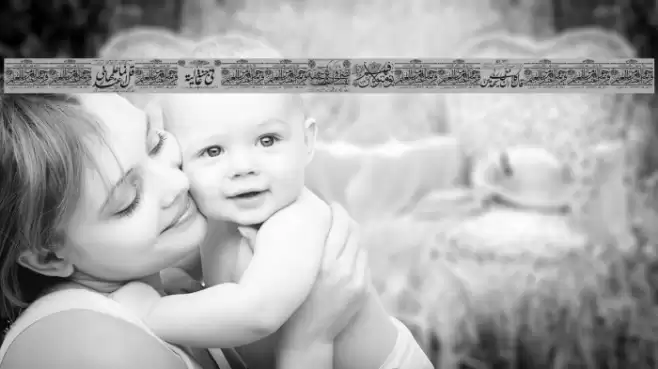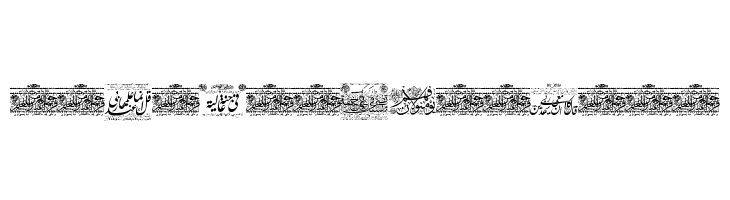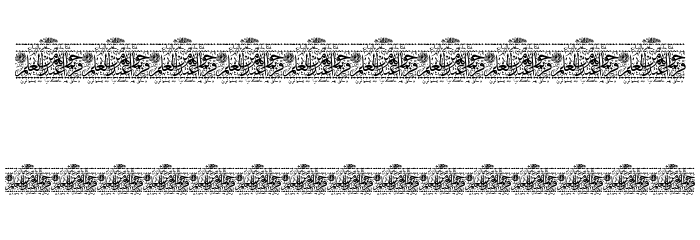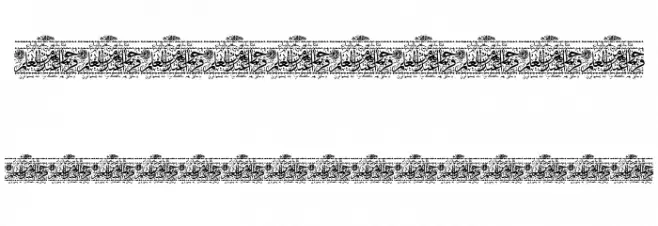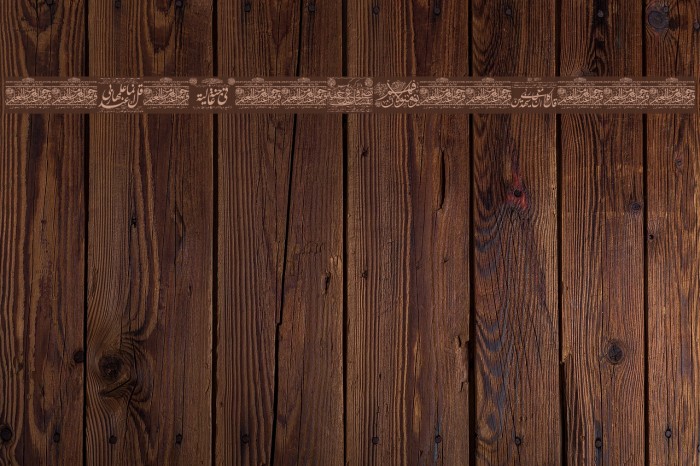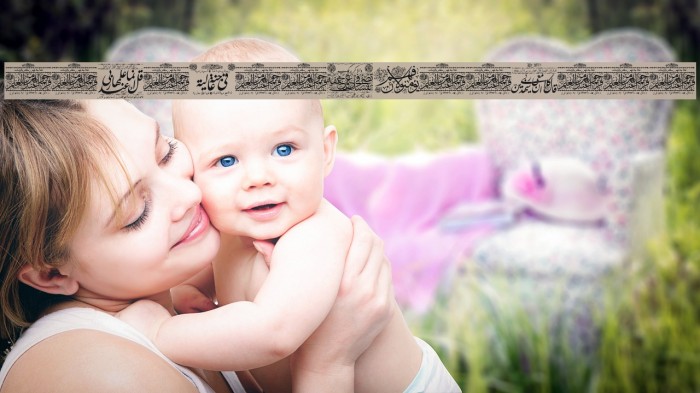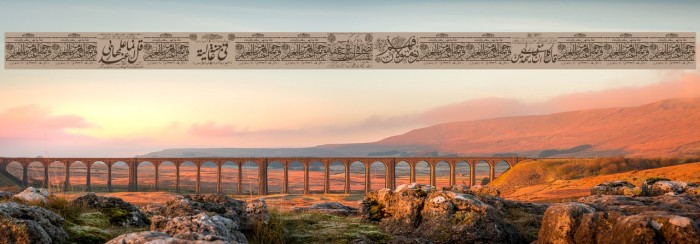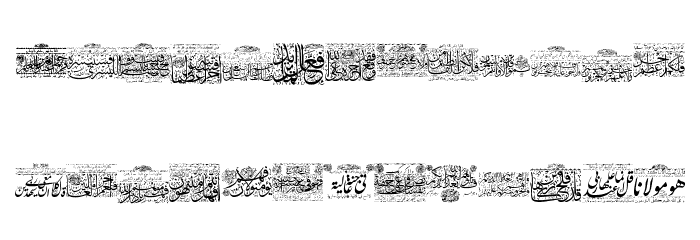
Aayat Quraan 27 Font
Aayat Quraan 27 Description
This image contains Arabic calligraphy with ornate, decorative elements and intricate detailing, commonly used in religious or ceremonial contexts. The script is highly stylized with complex ligatures and flourishes, making it more suitable for display rather than standard text usage.
Ornate Arabic calligraphic script with decorative flourishes from Uncategorized fonts.
- Proposed Projects: Religious texts, ceremonial documents, decorative art, posters, book covers.
- Character Spacing: Tight
- Overall Style: Decorative, Traditional, Religious
- Use Case: Religious scripture, Display, Art pieces